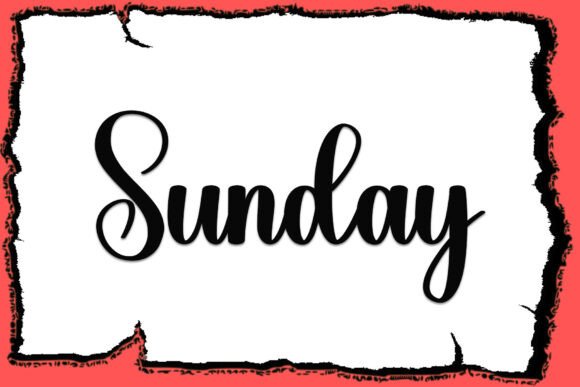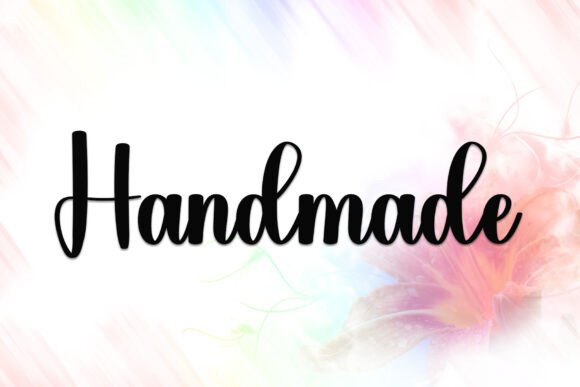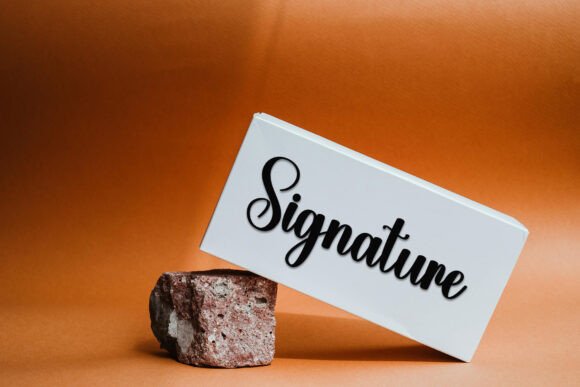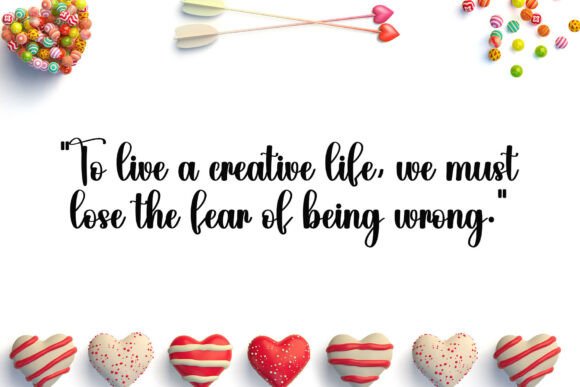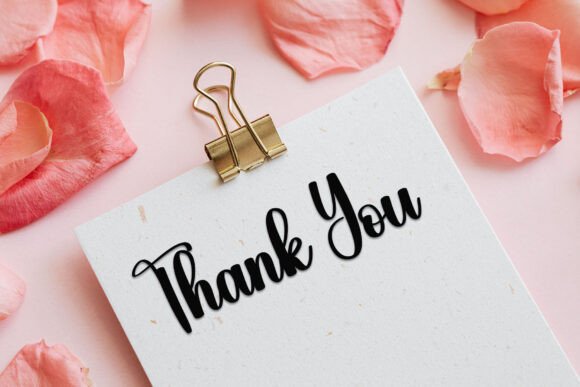
The Elegance of Barbie Font: A Designer’s New Best Friend
I still remember the design project that led me to discover the Barbie Font. I was working on a branding project for a luxury fashion client, and I was struggling to find the perfect font that exuded elegance and sophistication. The client was adamant that the font had to be handwritten, yet modern and trendy. After hours of scouring through font libraries, I stumbled upon Barbie Font, and it was love at first sight! ✨
So, what makes Barbie Font so special? Here are a few things I love about it:
- ✨ Timeless elegance: Barbie Font has a classic, sophisticated feel to it, reminiscent of traditional calligraphy.
- ✅ Versatility: It can be used for a wide range of design projects, from luxury branding to wedding invitations.
- 💫 Contemporary twist: Despite its classic inspiration, Barbie Font has a modern, trendy vibe that sets it apart from more traditional fonts.
Of course, no font is perfect, and Barbie Font has a few quirks:
- ⚠️ Limited use in body text: While Barbie Font is stunning in headlines and titles, it may not be the best choice for longer blocks of text.
- 🤔 Some letters may require manual kerning: As with any font, you may need to adjust the kerning of certain letter combinations to get the perfect look.
- Experiment with OpenType features like Stylistic Alternates and Glyphs to add more flair to your text.
- Take advantage of OpenType features like Swashes and Ligatures to add more personality to your text.
The Story Behind Barbie Font
While the origins of Barbie Font are shrouded in mystery, it’s said to have been inspired by the timeless elegance of classic calligraphy. The font’s creator aimed to capture the essence of handwritten script in a digital format, with a modern twist. The result is a font that’s both sophisticated and trendy.
| Font Name | Barbie Font |
| What is Barbie Font? | Barbie Font is a trendy handwritten font with a contemporary atmosphere and impeccable form, inspired by timeless classic calligraphy. |
| Is Barbie Font suitable for body text? | While Barbie Font is stunning in headlines and titles, it may not be the best choice for longer blocks of text. |